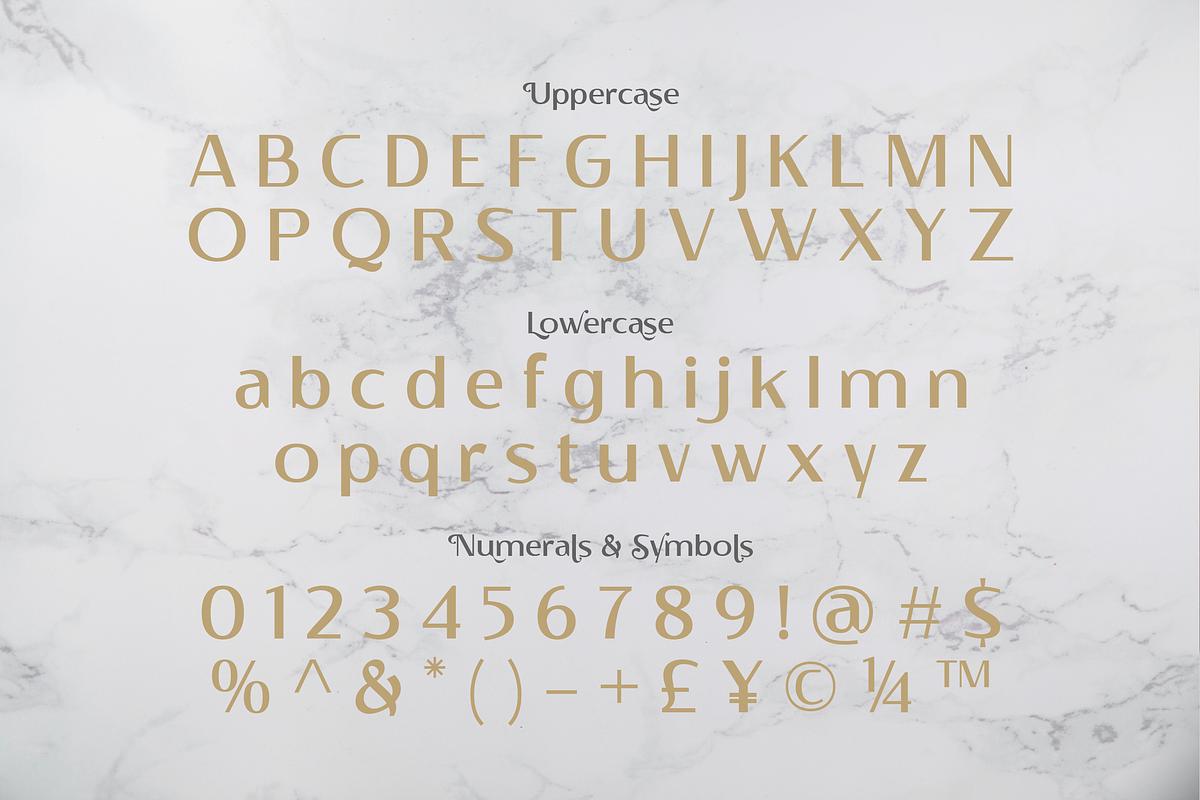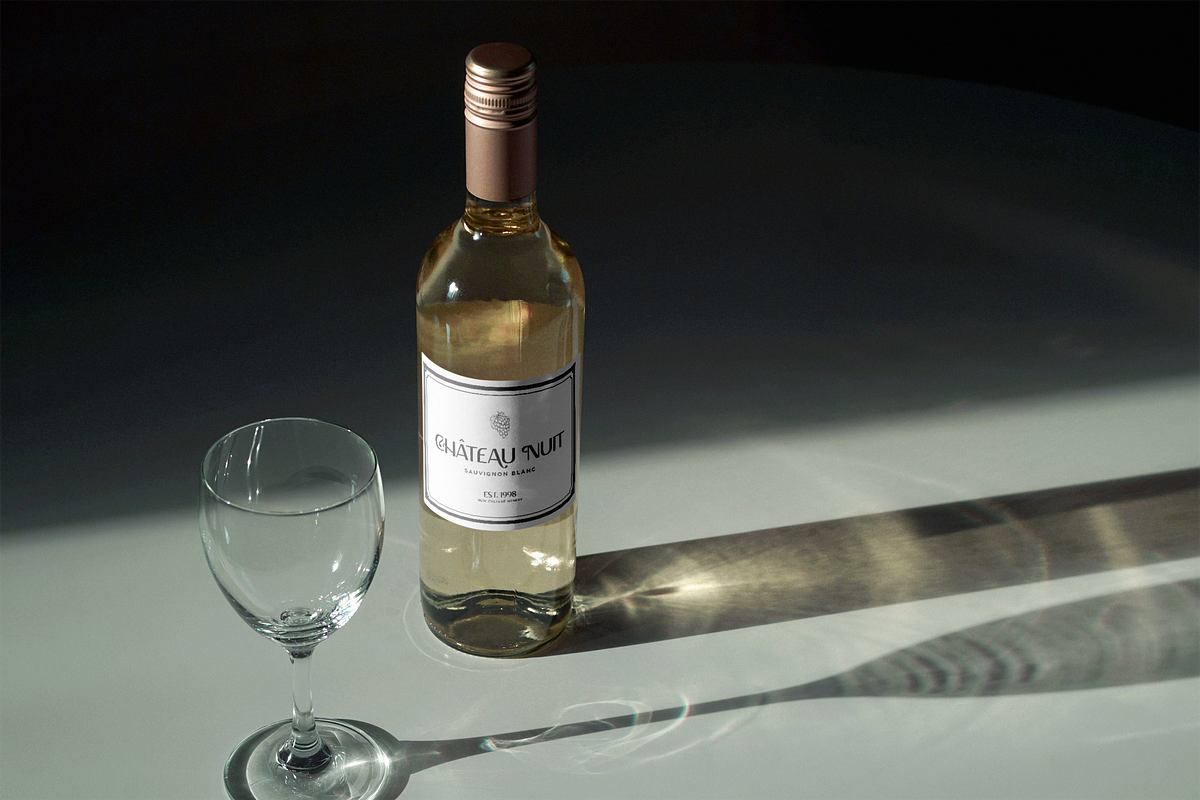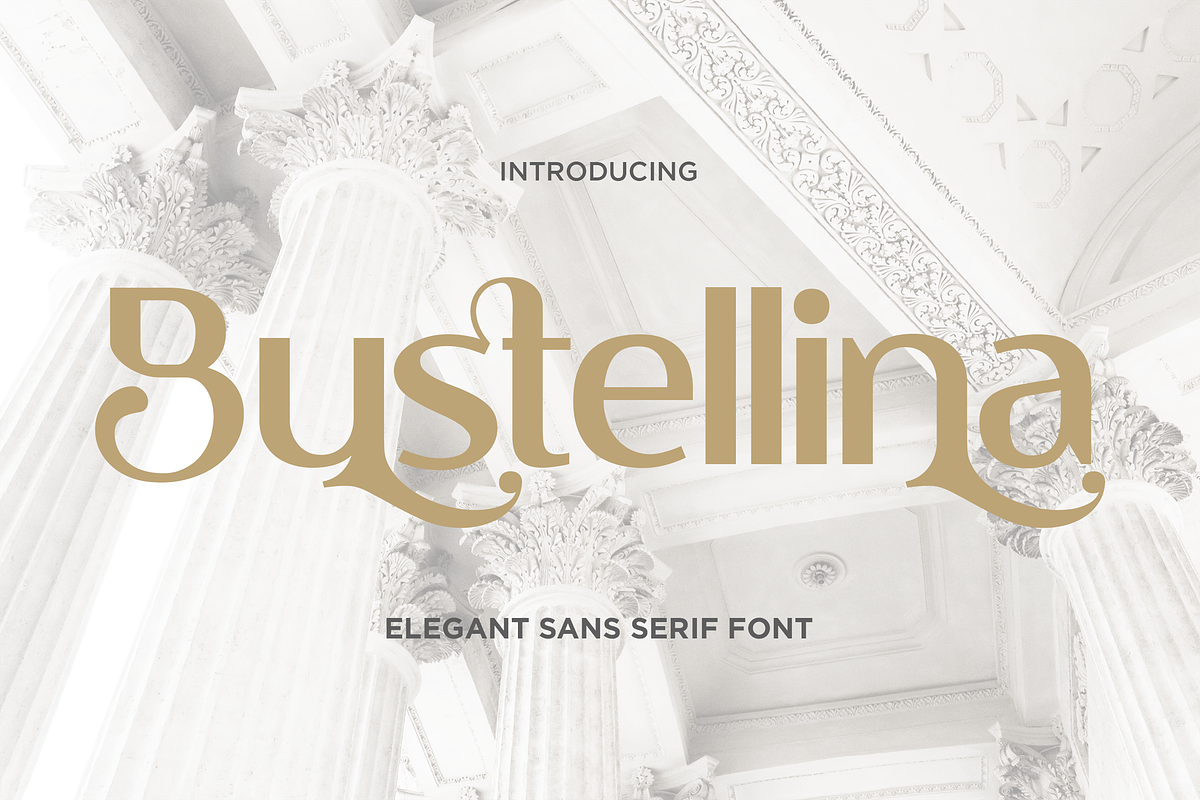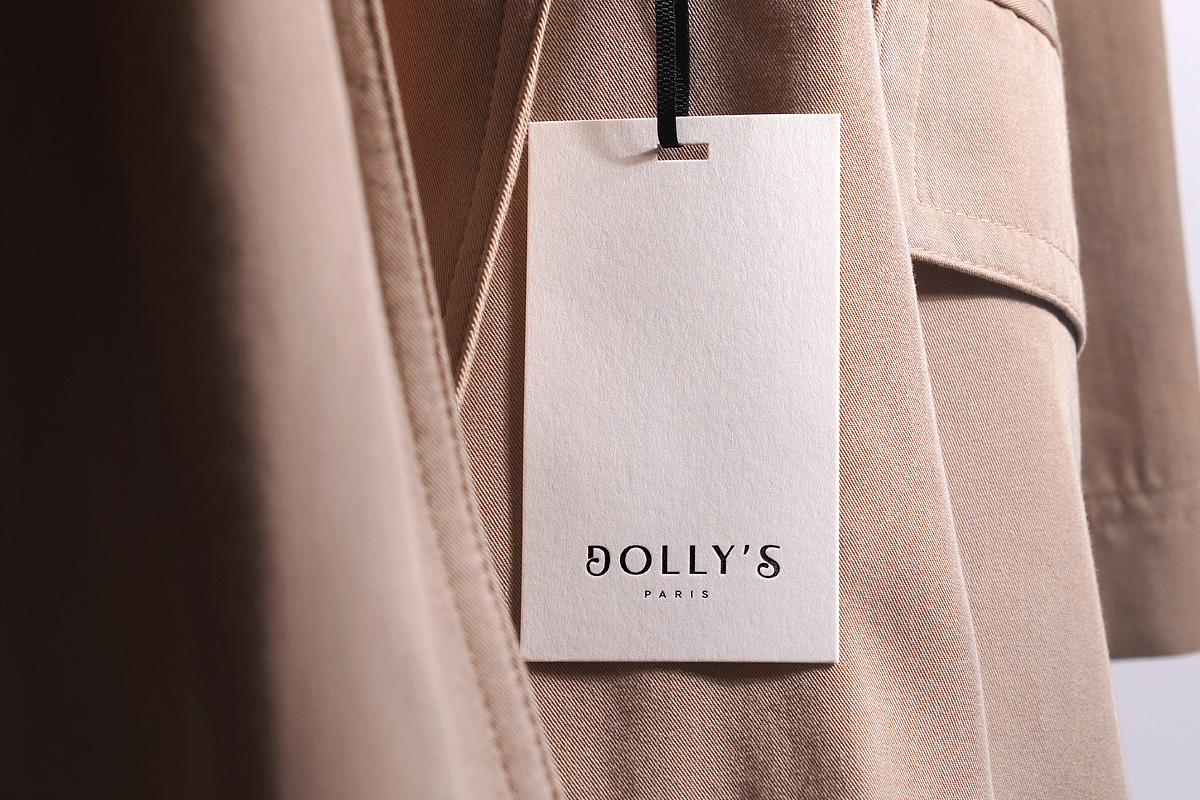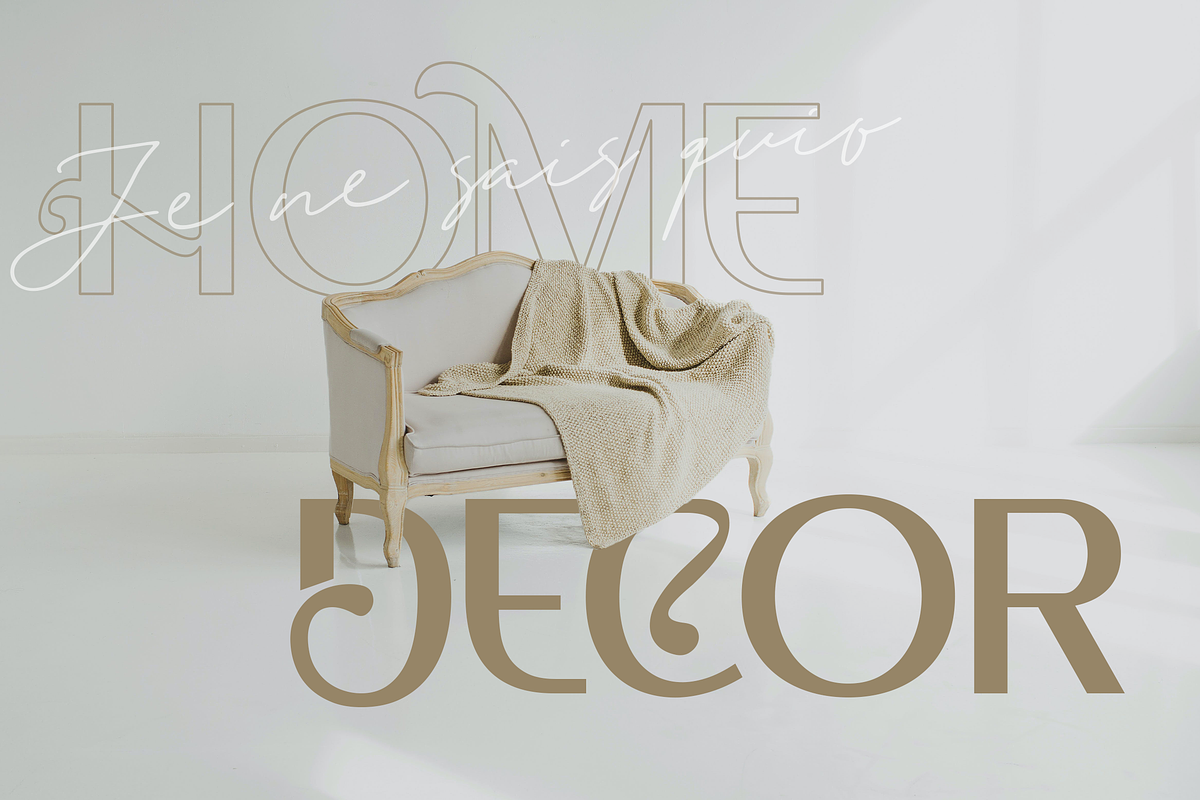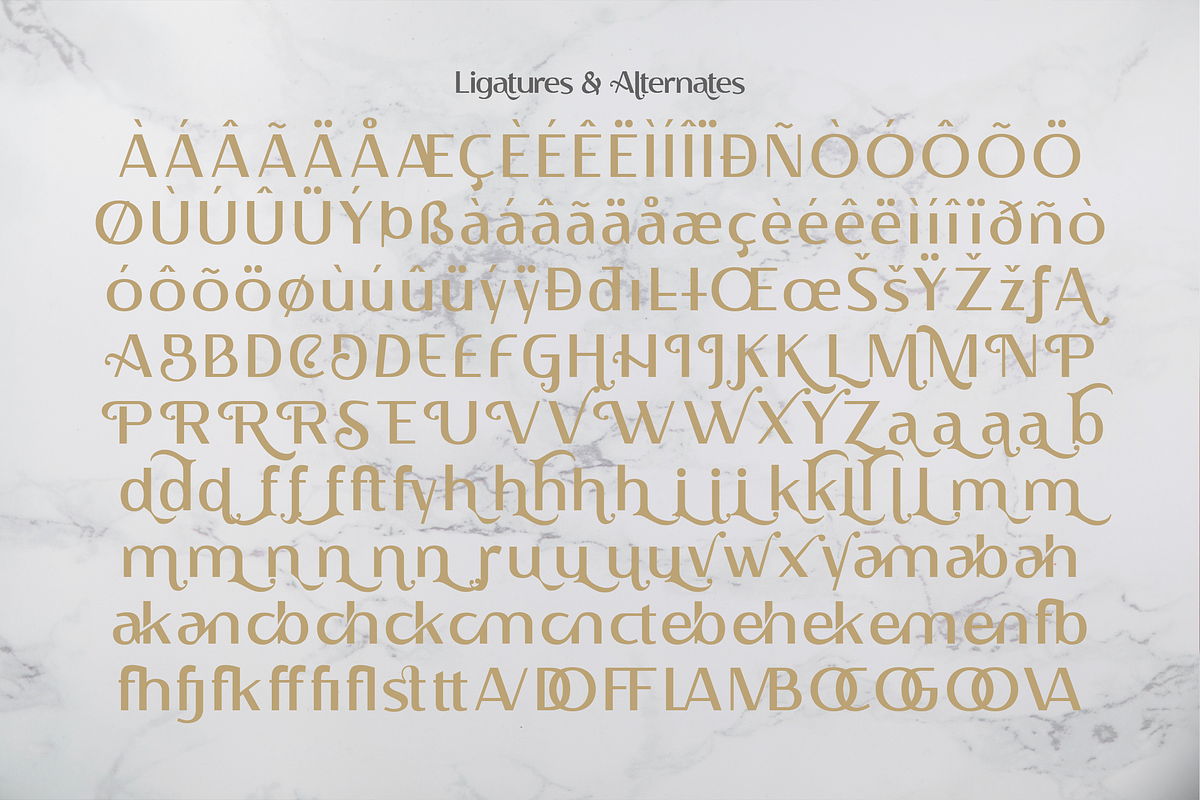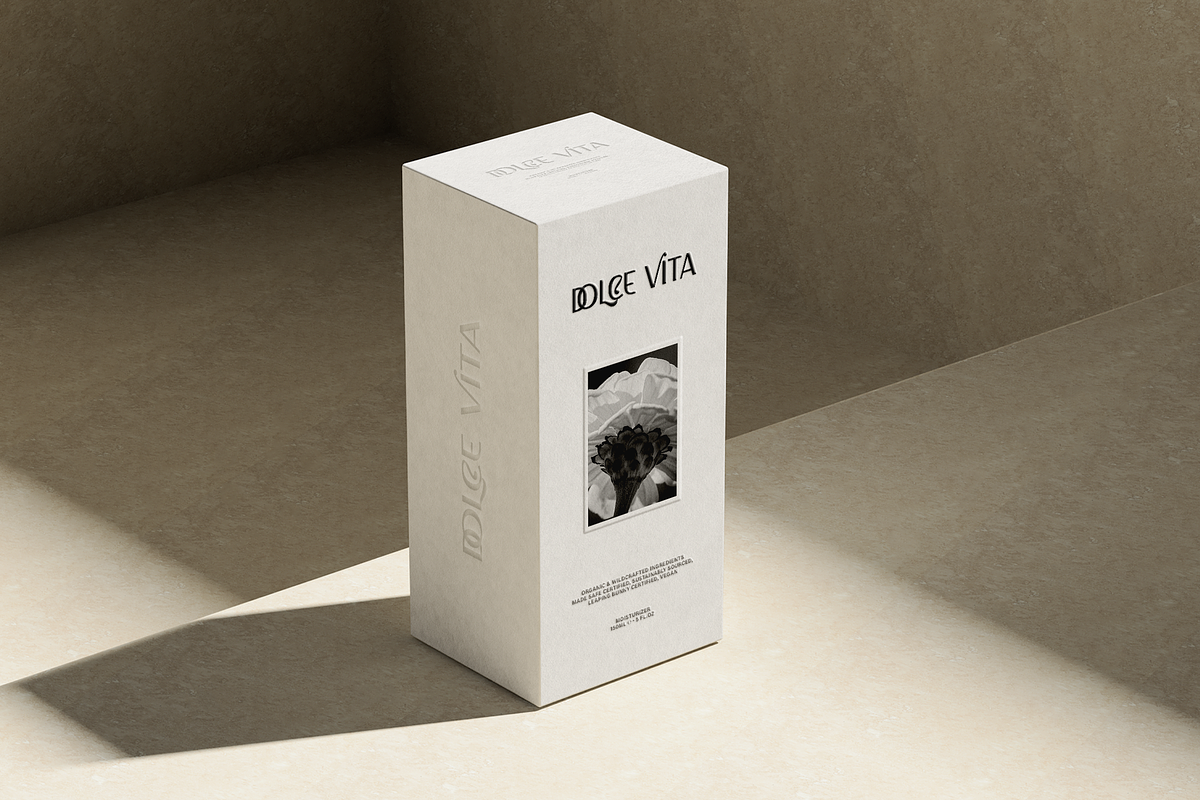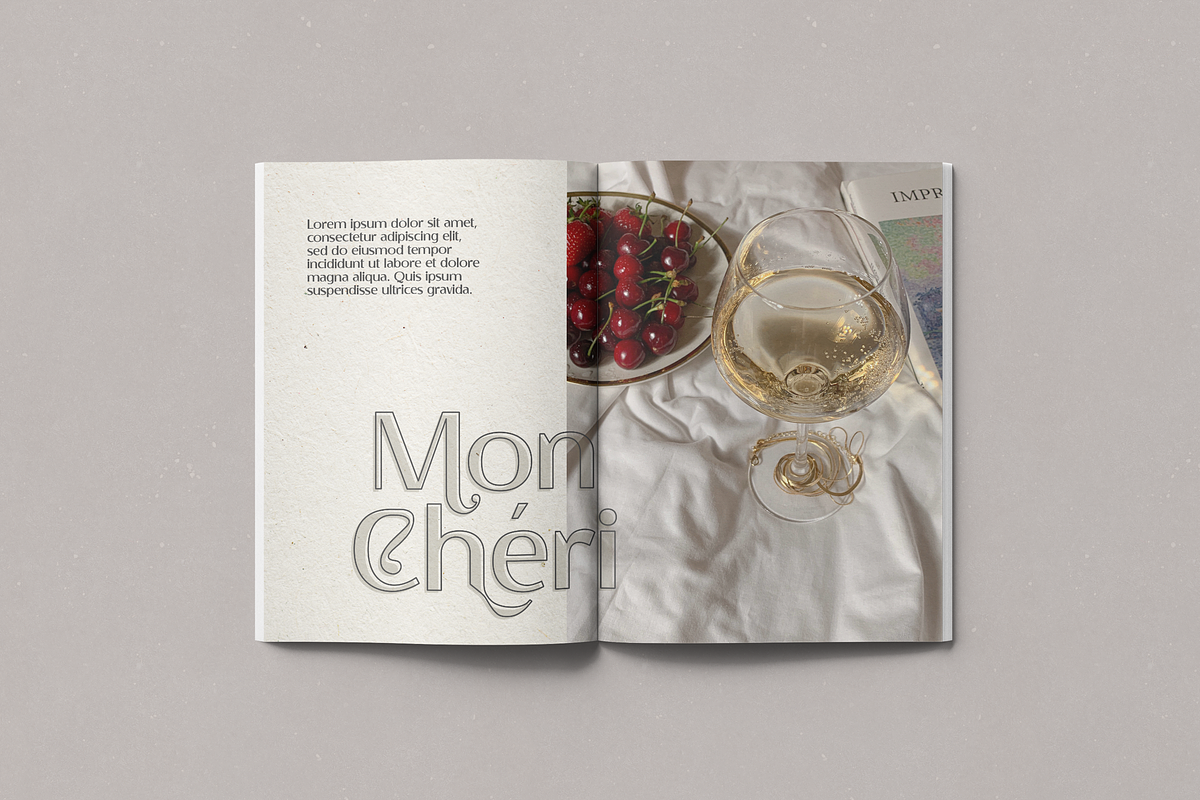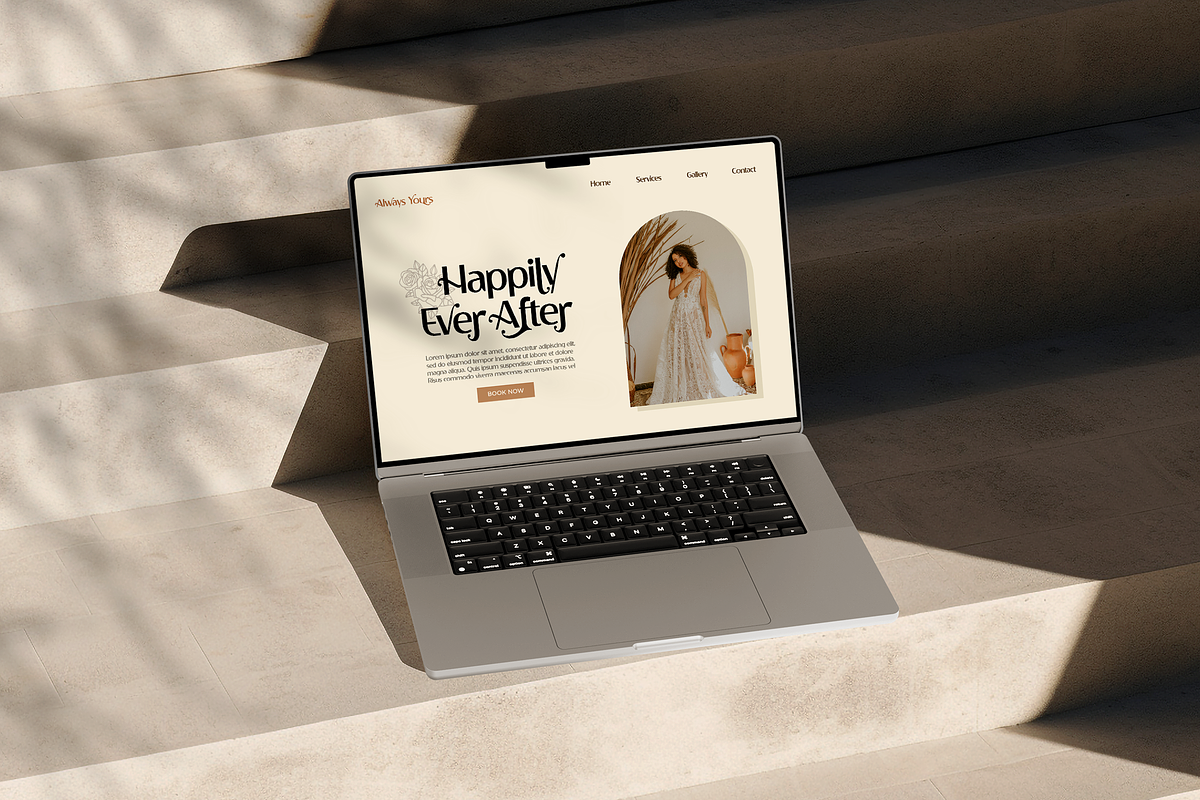
Bustellina | Elegant Sans Serif
Seeking to redefine your brand's image or add an extra essence to your projects? We've got you covered.
Introducing Bustellina - An Elegant Sans Serif Font.
Whether it's logos, digital assets, or print media, Bustellina leaves an enduring impression. Amplify your brand's visual identity with the captivating allure of this font. Have fun!
- Multilingual & Ligature Support
- Full sets of Punctuation and Numerals